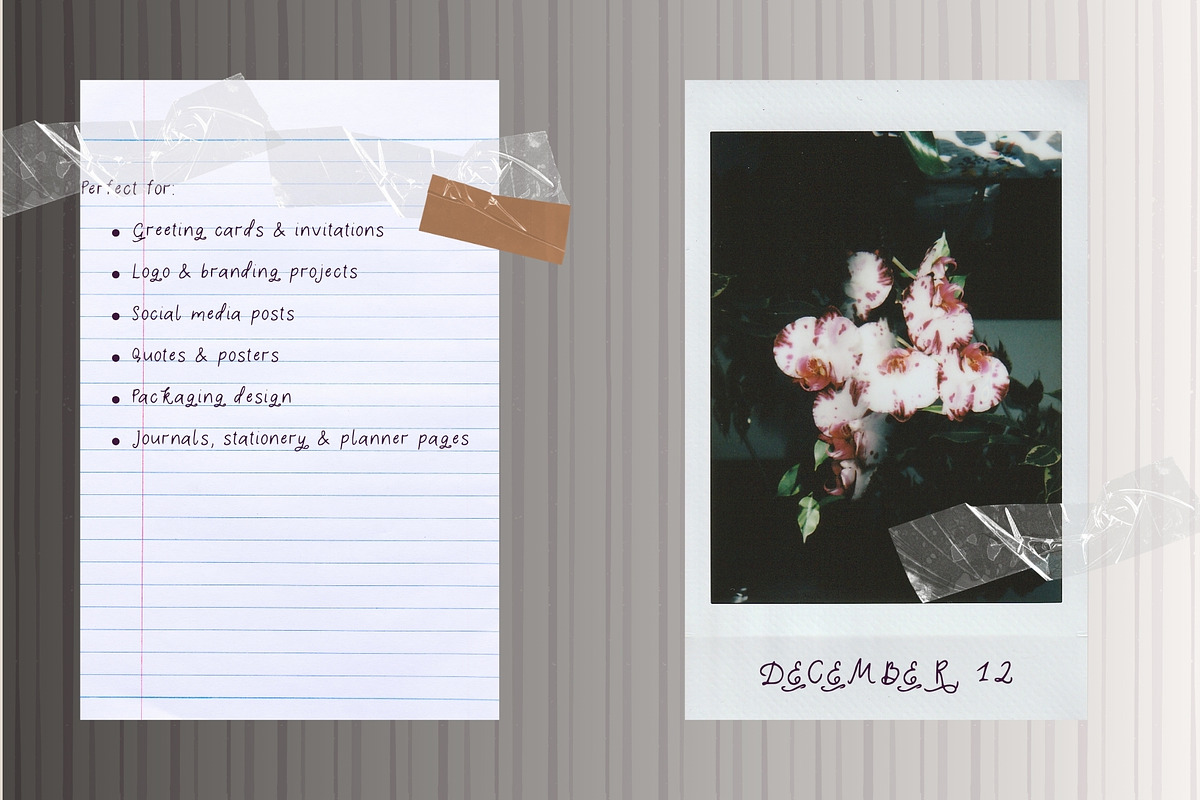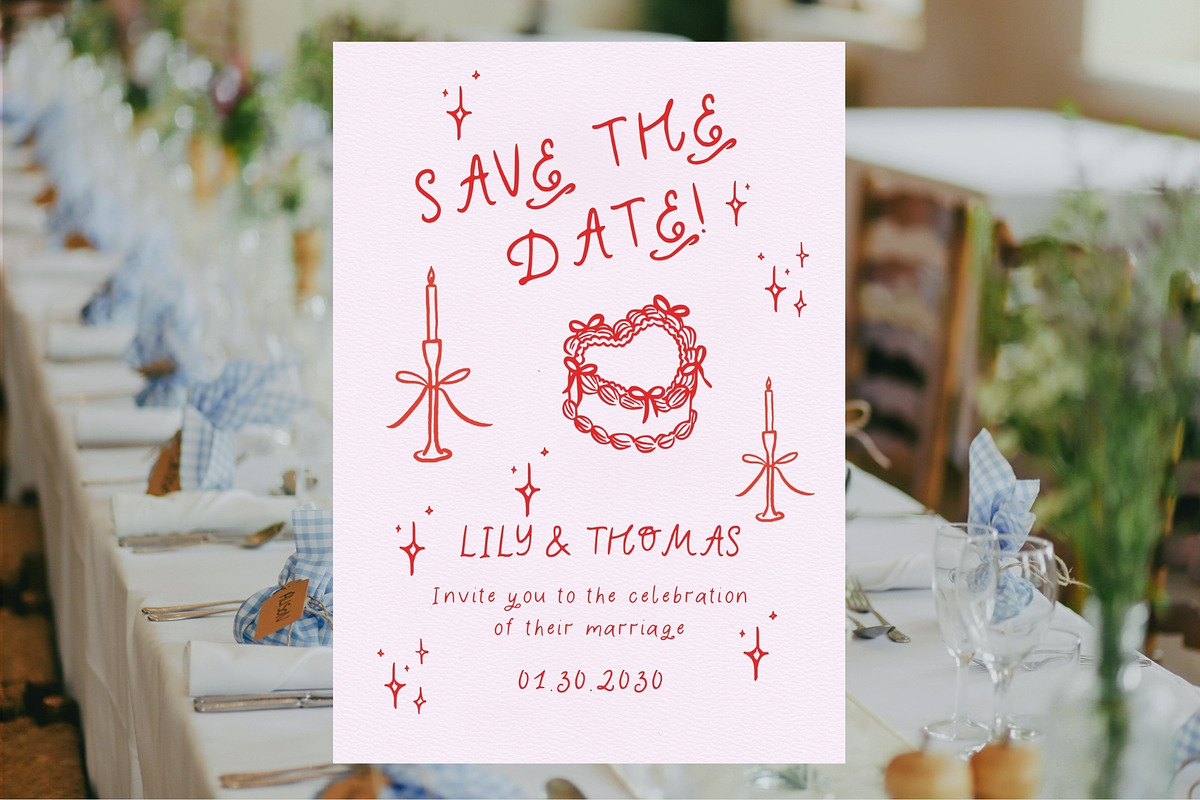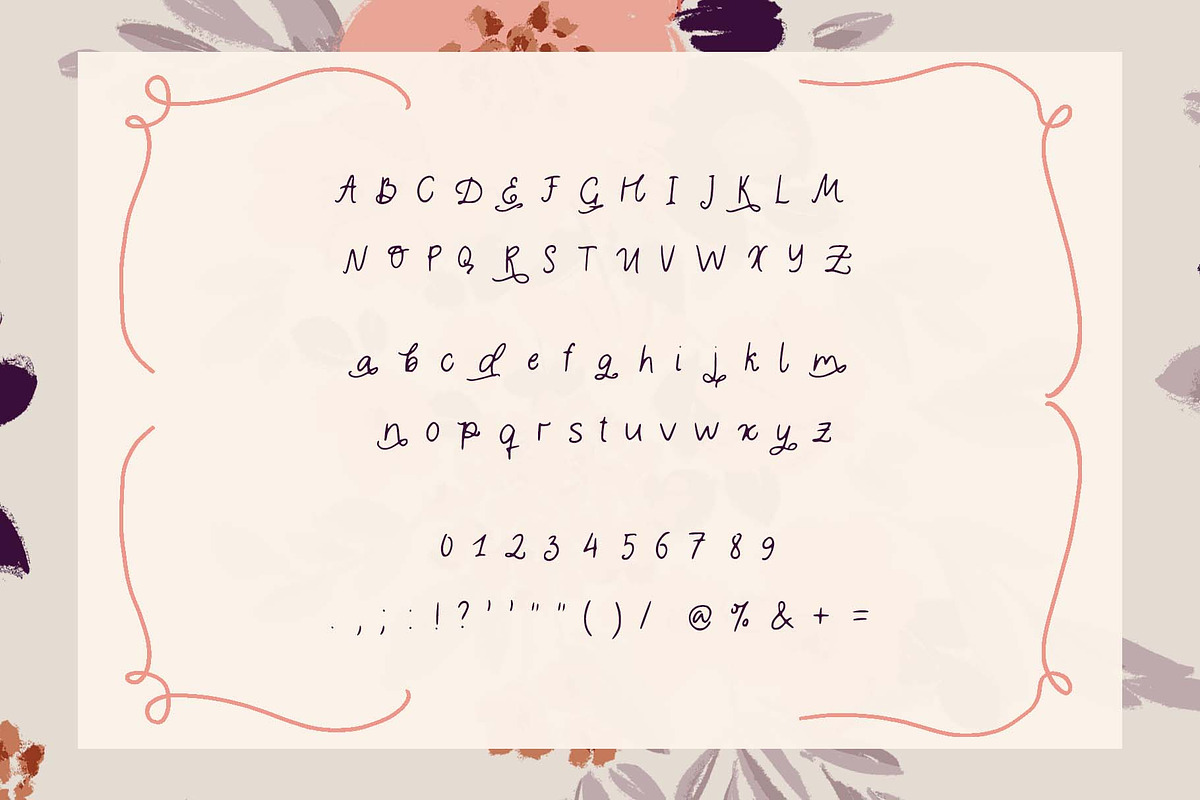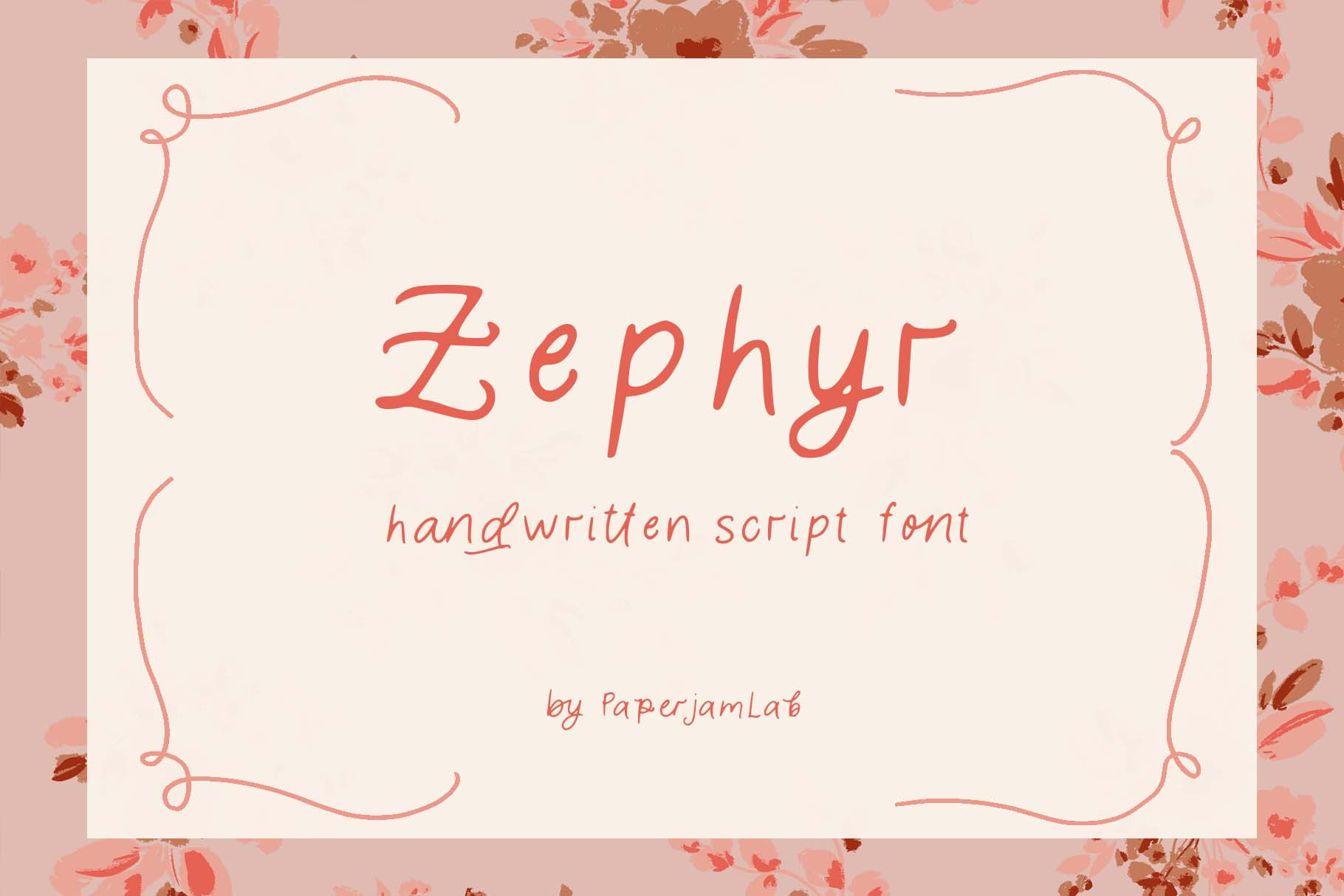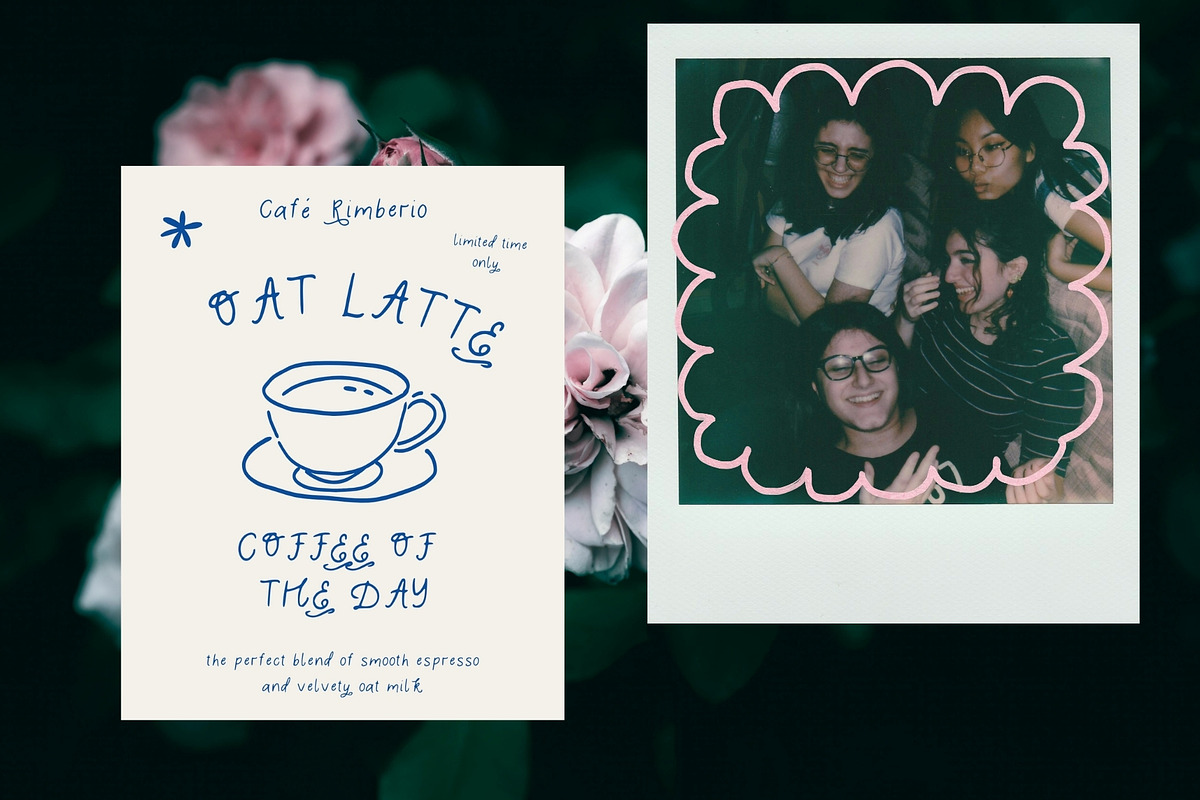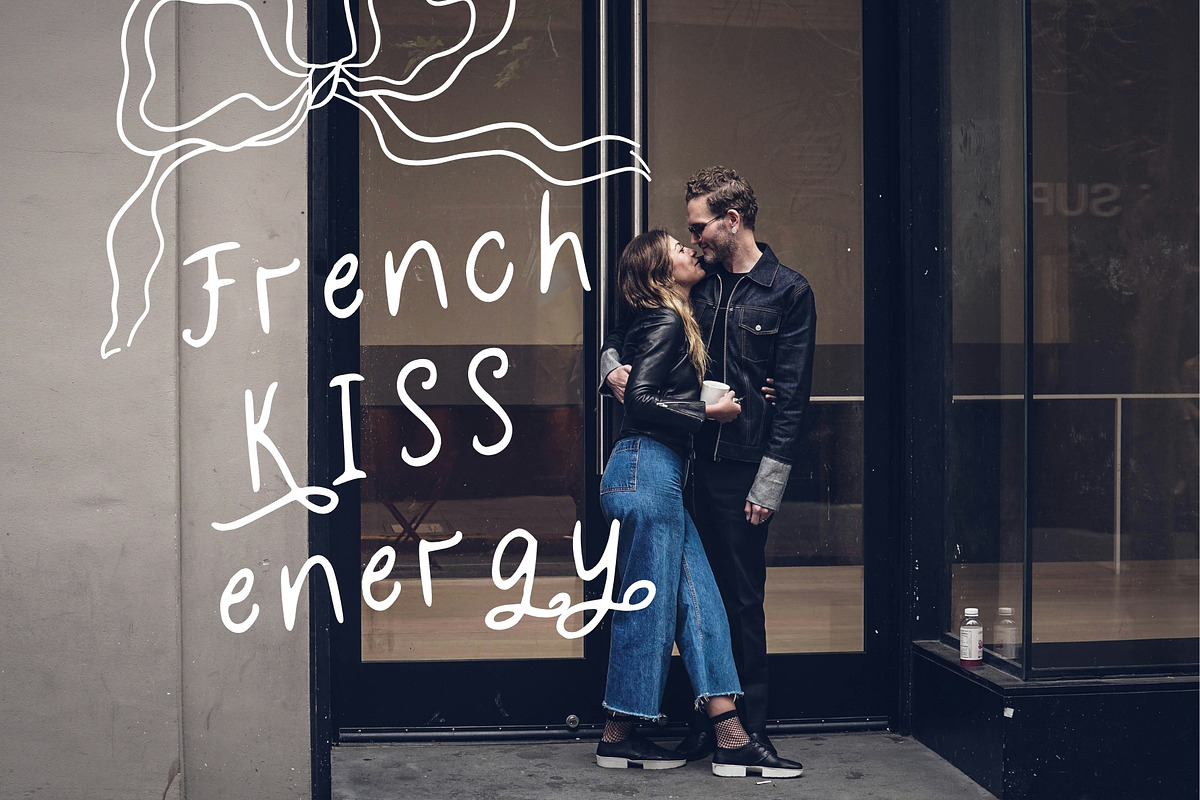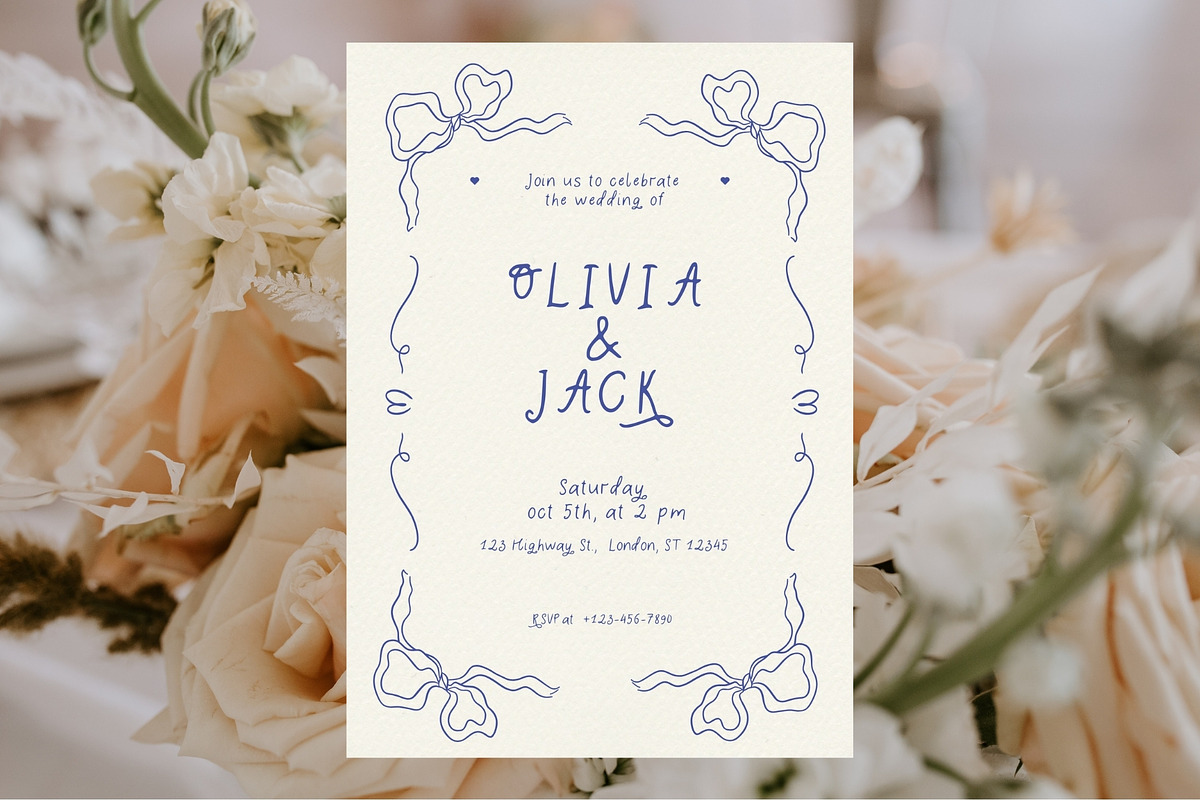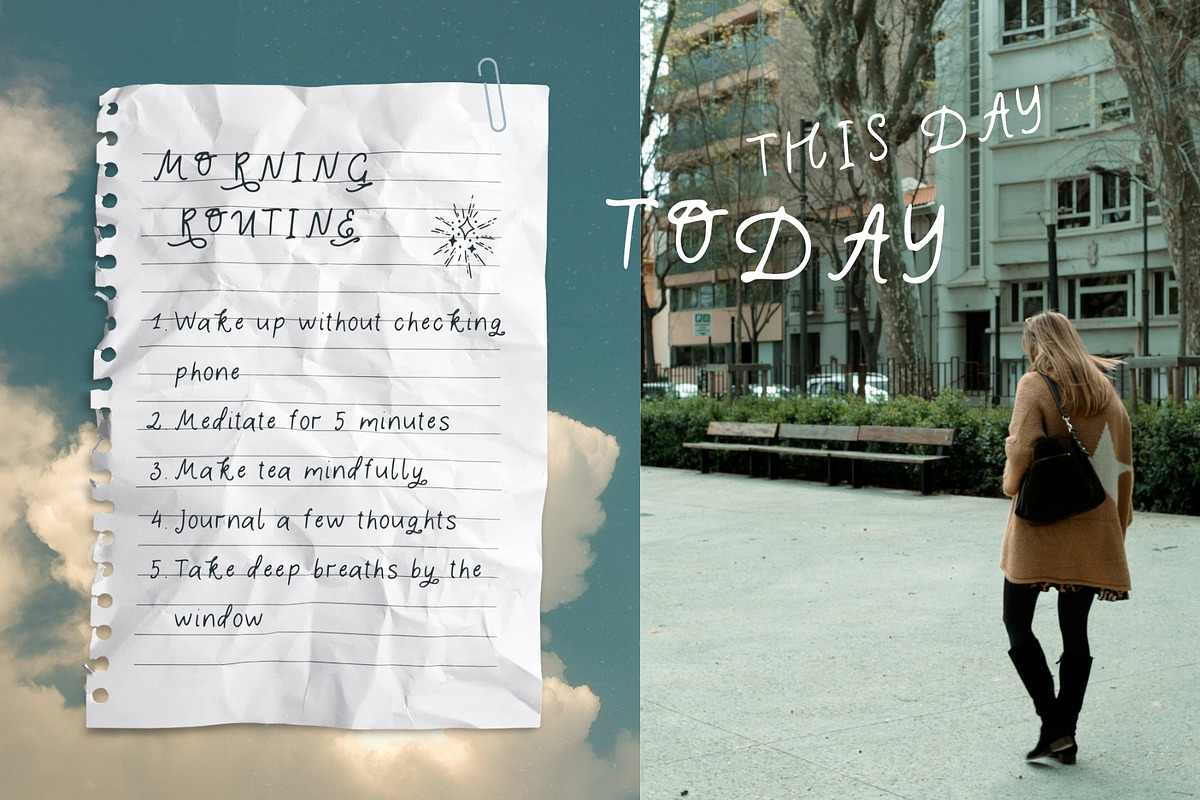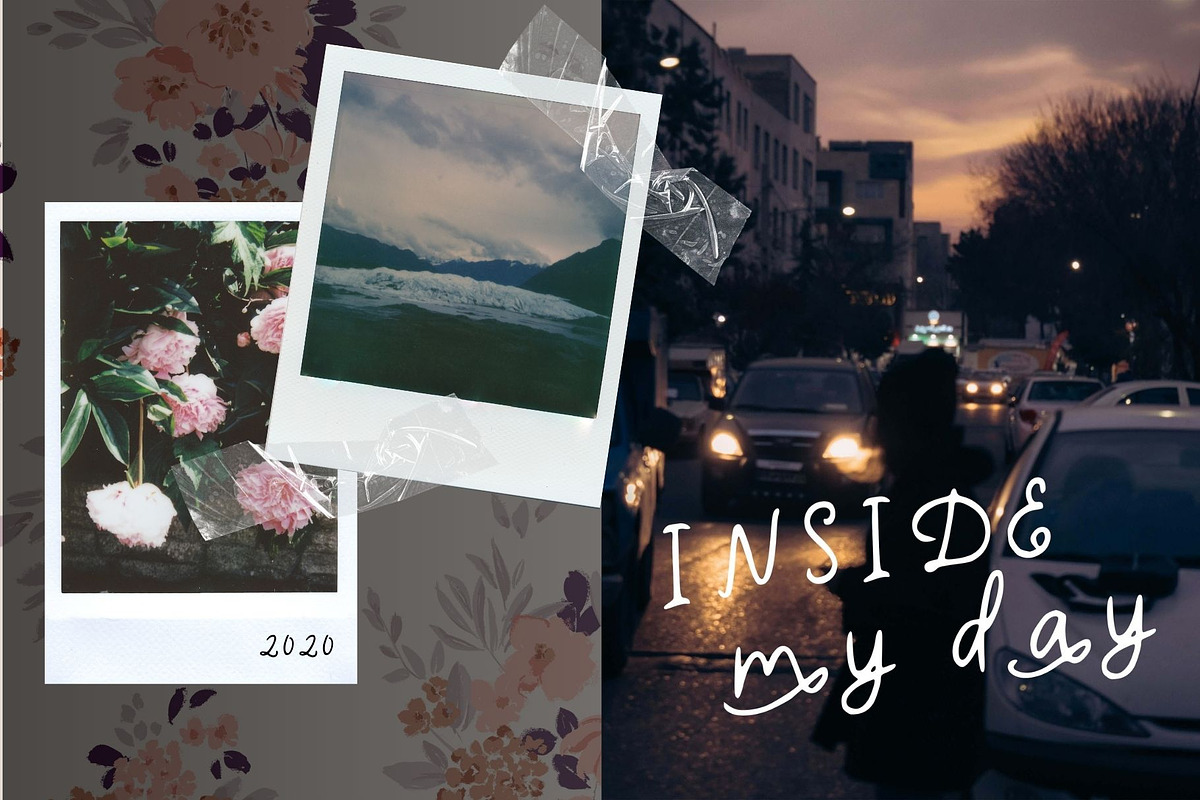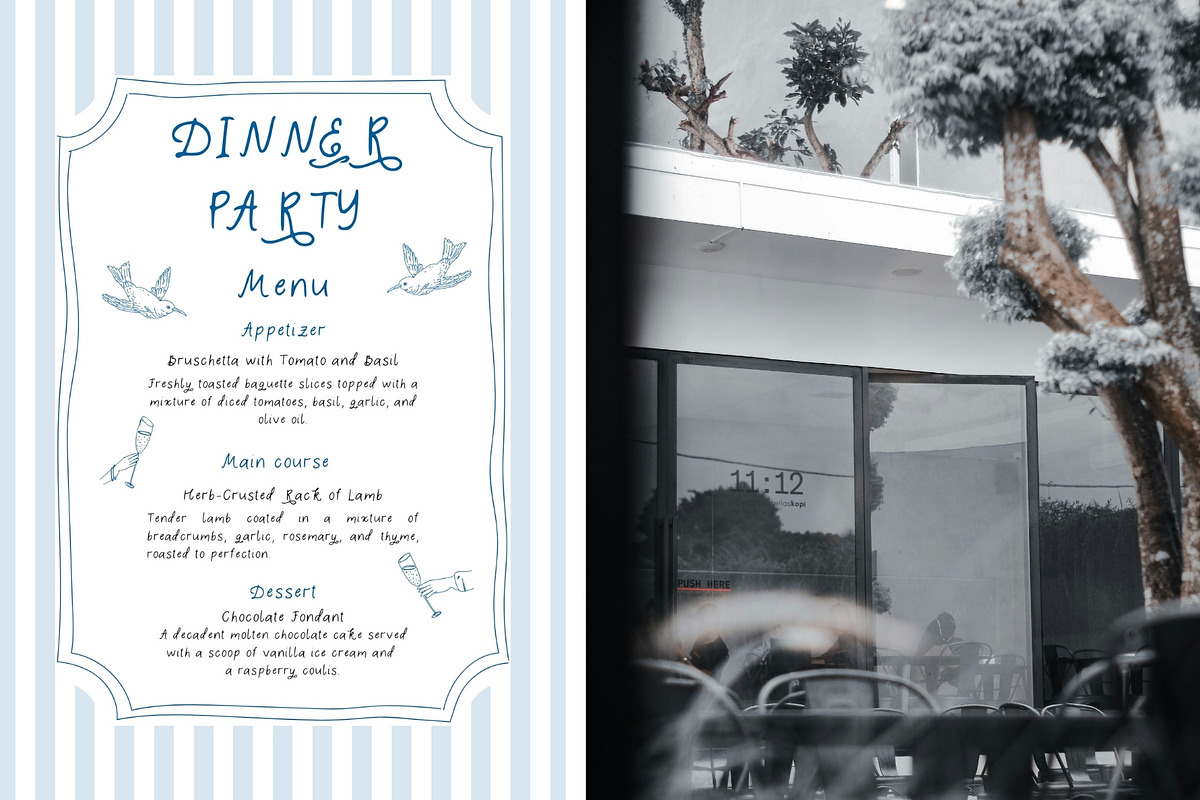
Zephyr. Whimsical Handwritten Font
Zephyr is a sweet and whimsical handwritten script font that captures the charm of natural handwriting. With soft curves, playful rhythm and a cozy handmade feel Zephyr adds a touch of warmth to any creative project. Zephyr is equipped with automatic character alternates - the font intelligently mixes different letter variations as you type, creating perfectly natural-looking handwriting without any manual effort! This font is perfect for greeting cards, wedding invitations, branding, packaging, social media quotes, and children's prints. It looks beautiful both in all caps and mixed case, bringing a light breeze of joy to your designs.
Uppercase & lowercase letters
Multilingual support (Western & Central Europe)
Greeting cards & invitations
Logo & branding projects
Social media posts
Quotes & posters
Packaging design
Journals, stationery & planner pages
Whimsical & friendly handwritten style
Smooth, natural stroke endings
Easy to read and beautifully balanced
Works great in both large titles and small text
Bring a soft, handmade touch to your designs with Zephyr that feels like a handwritten note from a friend.